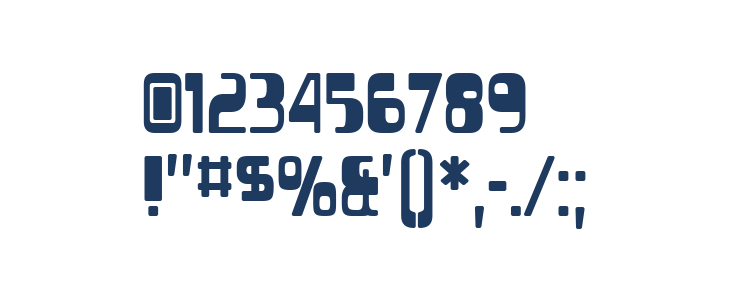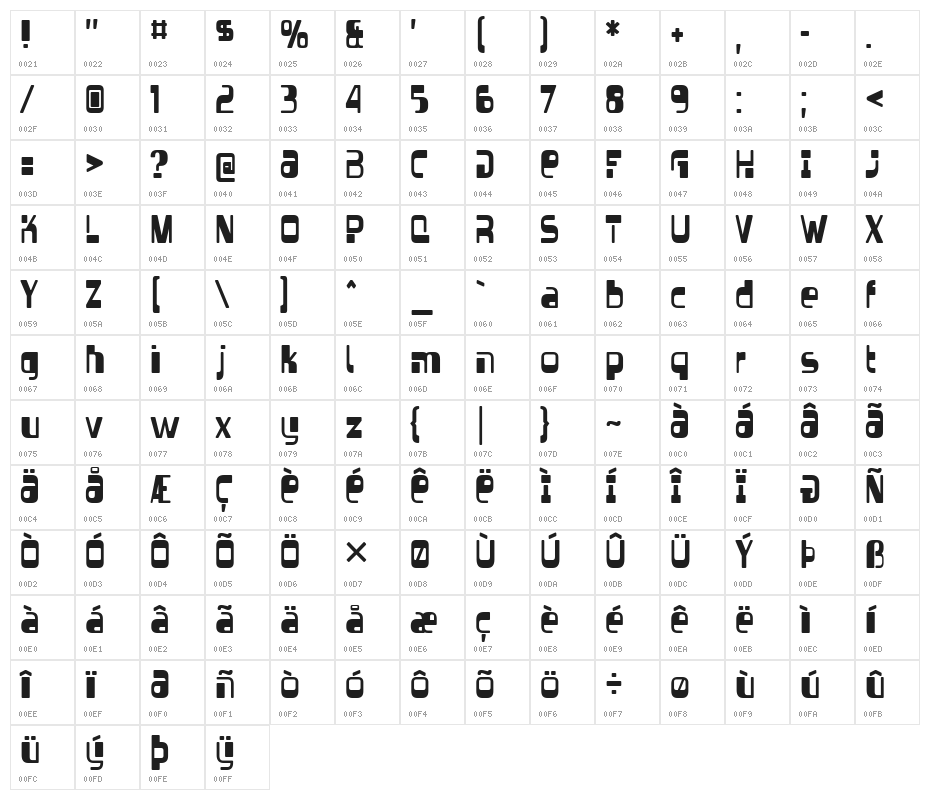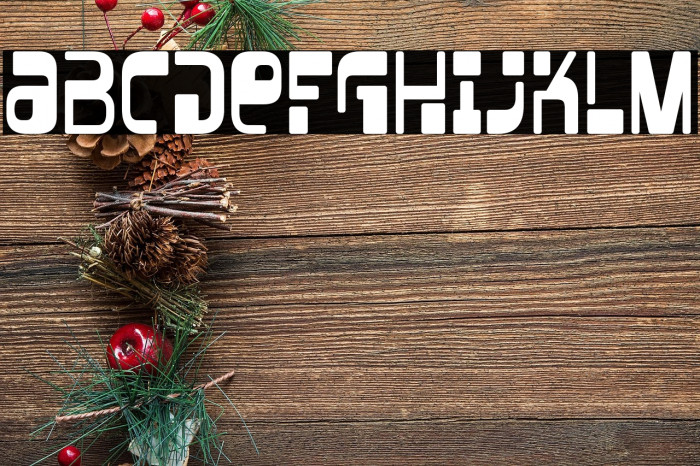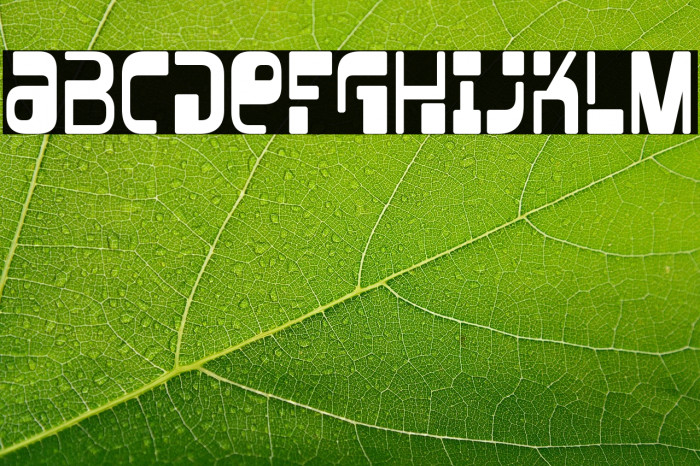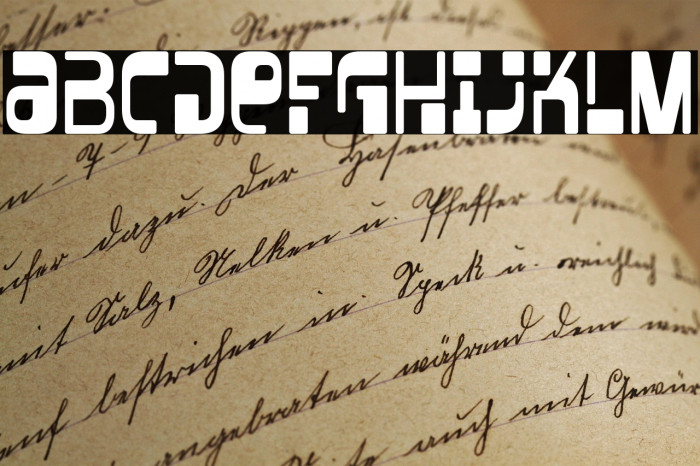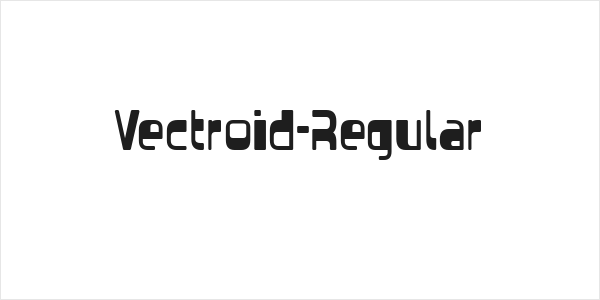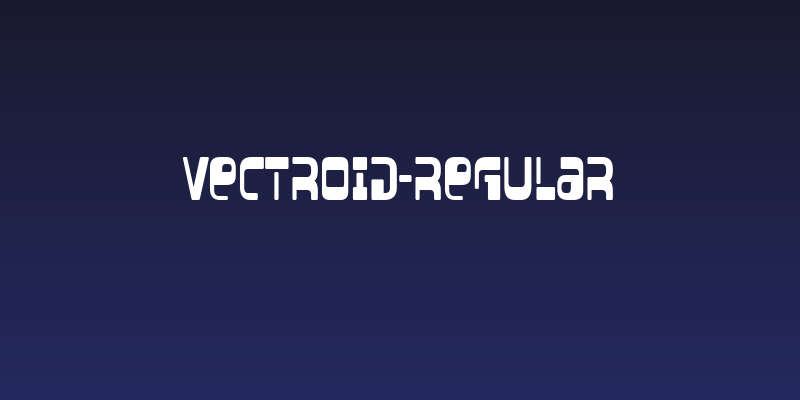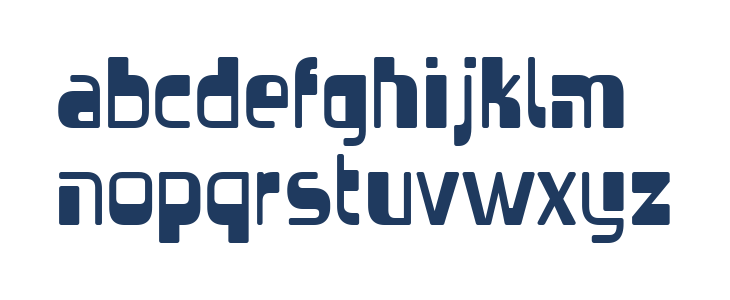
Vectroid-Regular Font
Vectroid-Regular Description
This font features a bold, geometric design with a futuristic and modern aesthetic. The characters are constructed with a combination of straight lines and rounded edges, creating a unique and eye-catching appearance. The uppercase and lowercase letters maintain a consistent style, with a slightly condensed width that adds to the compact and structured look. The numbers and special characters follow the same design principles, ensuring uniformity across all glyphs. This font's distinct style makes it suitable for projects that require a strong visual impact.
Proposed ProjectsIdeal for branding, posters, headlines, and digital interfaces that require a modern and impactful look.